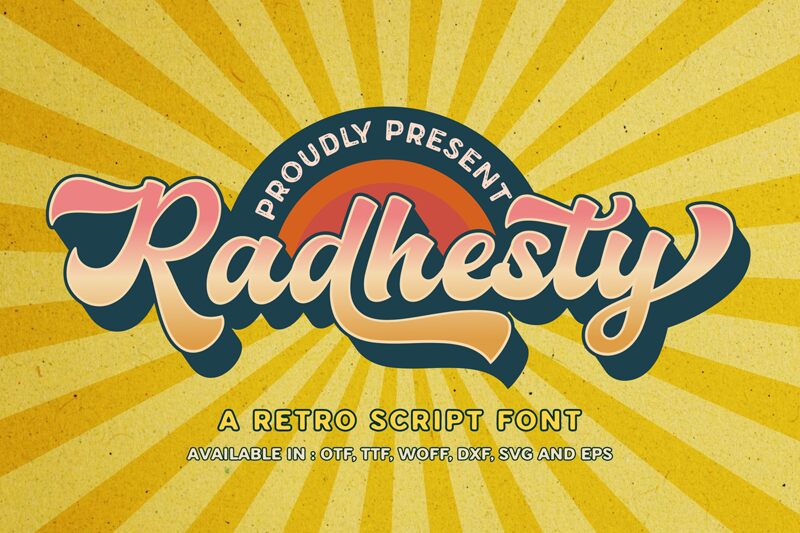
The Radhesty font by Sronstudio is a very cool retro brush style that brings back memories and artistic touch. It has got this sweeping nature with the dynamic character which makes it look like no other fonts out there. Such design works can’t stay unnoticed due to its boldness thus being perfects for eye-catching headlines or posters where you want to show some vintage feeling mixed up with freshness.
Radhesty